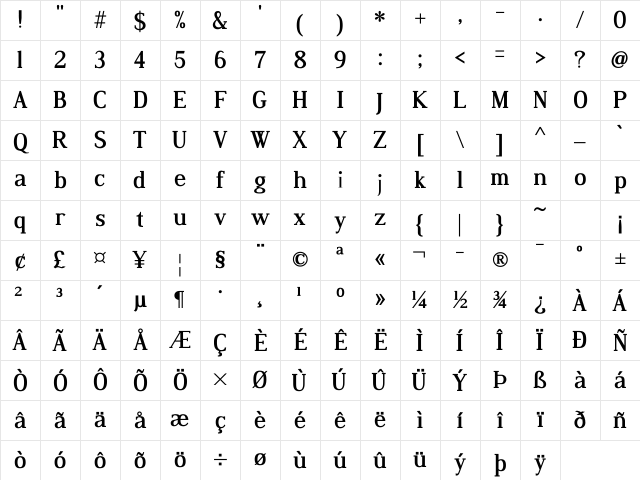
Dustismo Roman Regular
Designer: Dustin Norlander
Design Context for Dustismo Roman
Dustismo Roman is a composed and adaptable typeface that performs quietly and consistently across a wide range of design contexts.